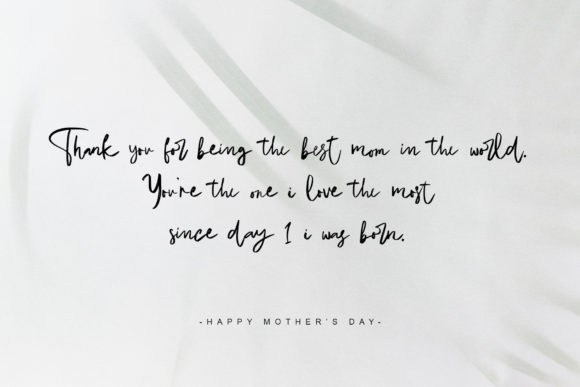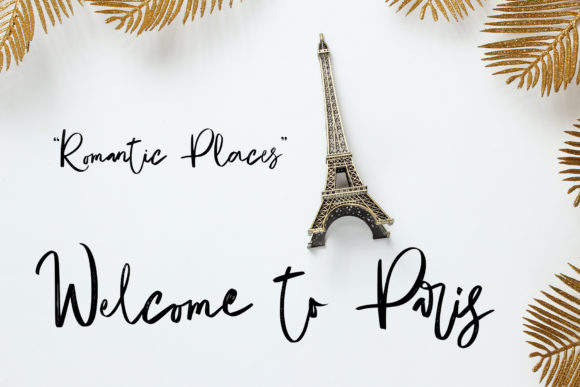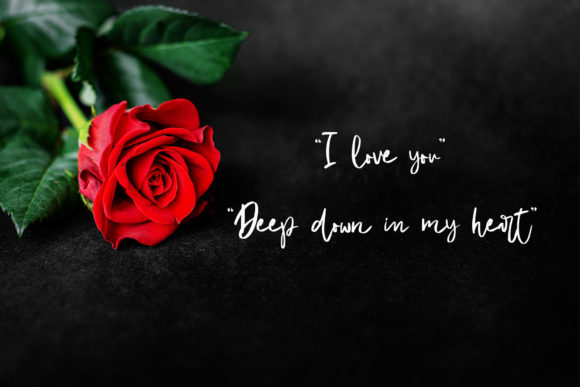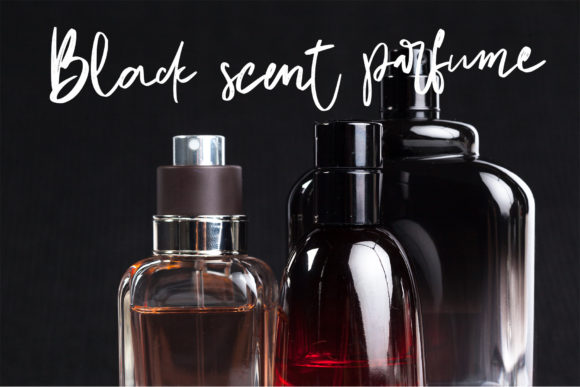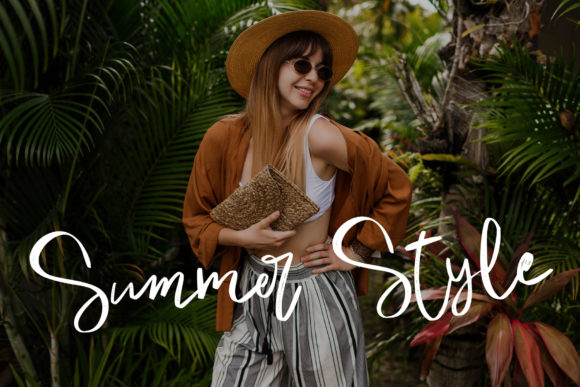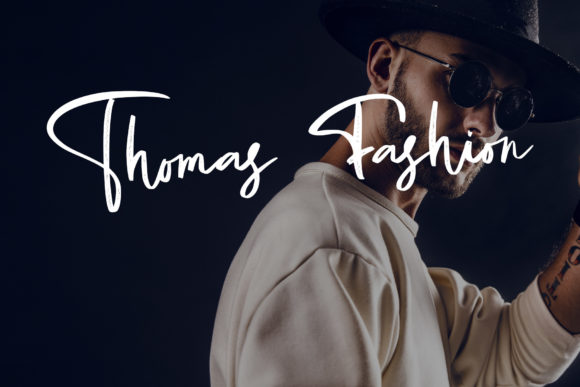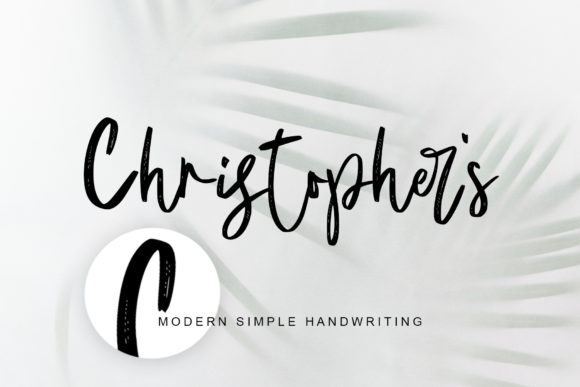
Introducing Christopher’s Font: Elevate Your Designs with Elegant Cursive Script
In the world of digital design, fonts play a crucial role in conveying the tone and aesthetic of a project. For designers and crafters seeking to add a touch of elegance and sophistication to their work, Christopher’s Font is an exceptional choice. This beautiful, cursive script font is perfect for a variety of applications, from wedding invitations and greeting cards to logos and business cards.
The Characteristics of Christopher’s Font
Christopher’s Font is distinguished by its elegant and cursive script style, which lends a personal and refined feel to any design. Its key features include:
• Elegant Cursive Style: The fluid, connected letters create a smooth and harmonious look, ideal for designs that require a sophisticated touch.
• Versatility: Christopher’s Font is suitable for a wide range of projects, including wedding invitations, thank you cards, quotes, greeting cards, logos, and business cards.
Applications of Christopher’s Font
The versatility of Christopher’s Font makes it an excellent addition to any designer’s toolkit. Here are some of the many ways you can use this elegant font:
Wedding Invitations and Stationery
Weddings are a perfect occasion to showcase beautiful typography. Christopher’s Font, with its elegant cursive script, adds a romantic and sophisticated touch to wedding invitations, save-the-date cards, and other stationery. The font’s refined appearance sets the tone for a memorable and stylish event.
Greeting Cards and Quotes
Whether you’re designing greeting cards for holidays, special occasions, or simply to express your sentiments, Christopher’s Font is an excellent choice. Its cursive elegance brings warmth and personality to your messages. Additionally, the font’s aesthetic appeal makes it perfect for highlighting inspirational quotes and phrases in blogs, social media posts, or printed materials.
Logos and Business Cards
For businesses and professionals looking to establish a distinctive brand identity, Christopher’s Font offers a unique and stylish solution. Its elegant appearance can elevate logos, business cards, and other marketing materials, conveying a sense of luxury, sophistication, and attention to detail.
Benefits of Using Christopher’s Font
Choosing Christopher’s Font for your design projects comes with several benefits:
• Unique and Memorable: The distinctive cursive script style helps your designs stand out and leave a lasting impression.
• High Versatility: The font’s adaptability across various design applications makes it a valuable asset in your font library.
Font Name Christopher’s Font
Author thomasaradea
Christopher’s Font is a stunning, elegant cursive script font that can elevate a wide range of design projects. Its versatility, combined with PUA encoding for easy access to glyphs and swashes, makes it a valuable tool for designers and crafters. Whether you’re working on wedding invitations, greeting cards, logos, or business cards, Christopher’s Font is sure to add a touch of sophistication and elegance. Incorporate this beautiful font into your projects and discover the difference it can make.